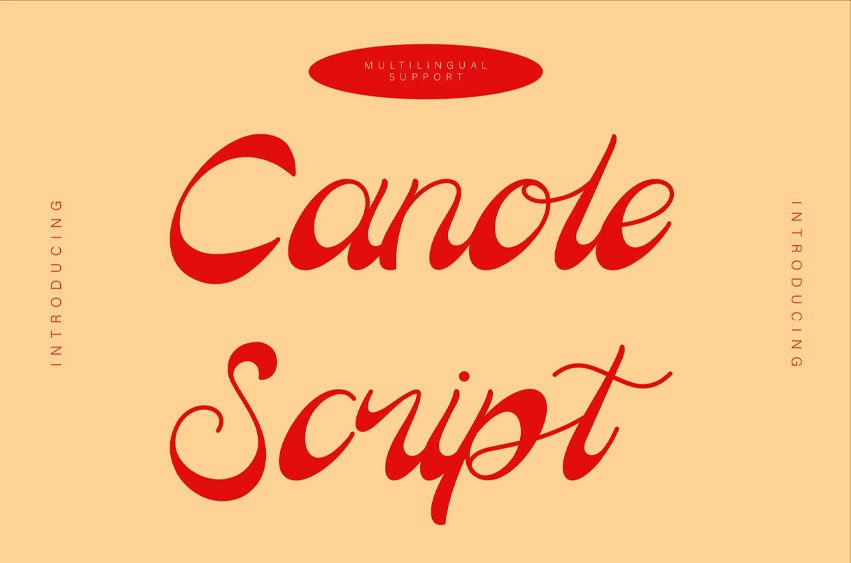
Canole Script Font
Canole Script Font is an elegant script font characterized by its fluid, cursive strokes and graceful curves. It exudes a sense of sophistication and charm, making it ideal for projects that require a personal or artistic touch.
The font’s smooth transitions between letters and delicate detailing give it a refined and vintage appeal.